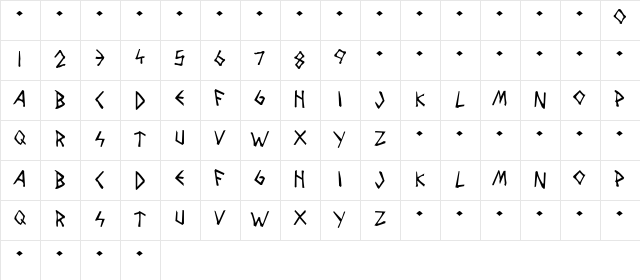
Wolves and Ravens Regular
Design Context for Wolves and Ravens Typeface
Wolves and Ravens is a composed and adaptable typeface that performs quietly and consistently across a wide range of design contexts.